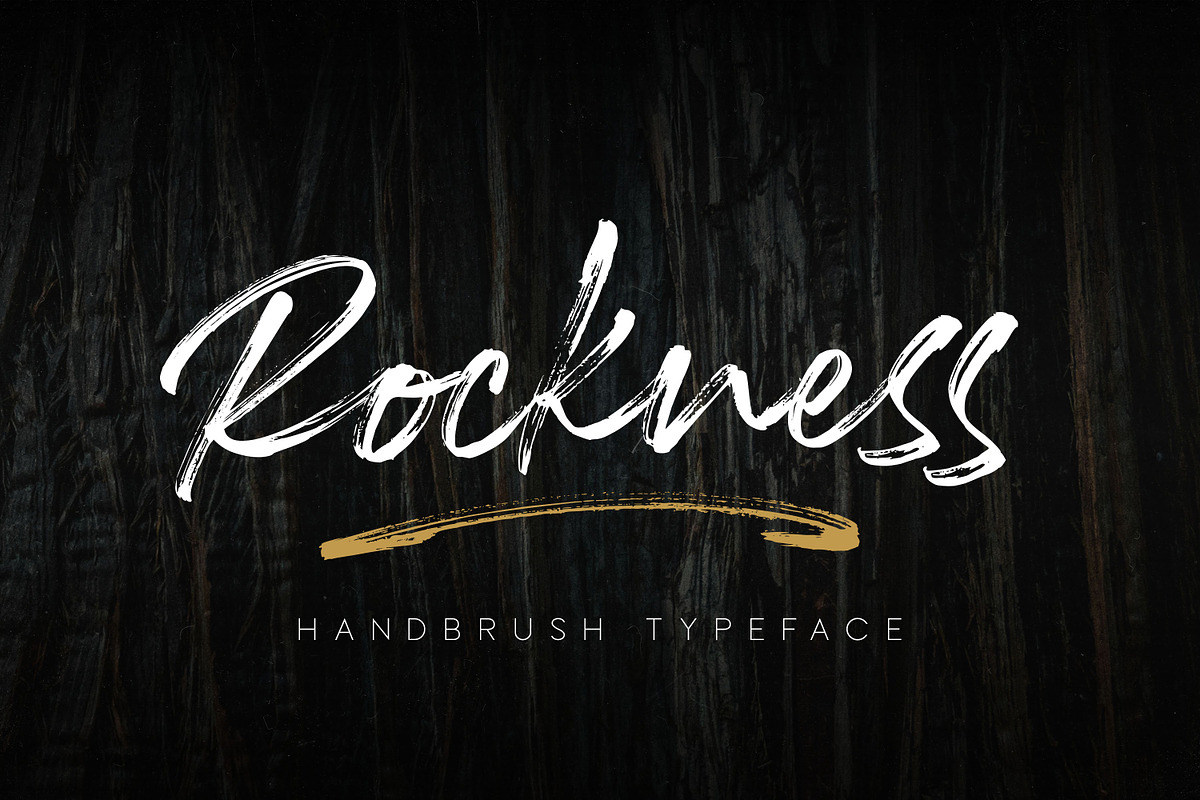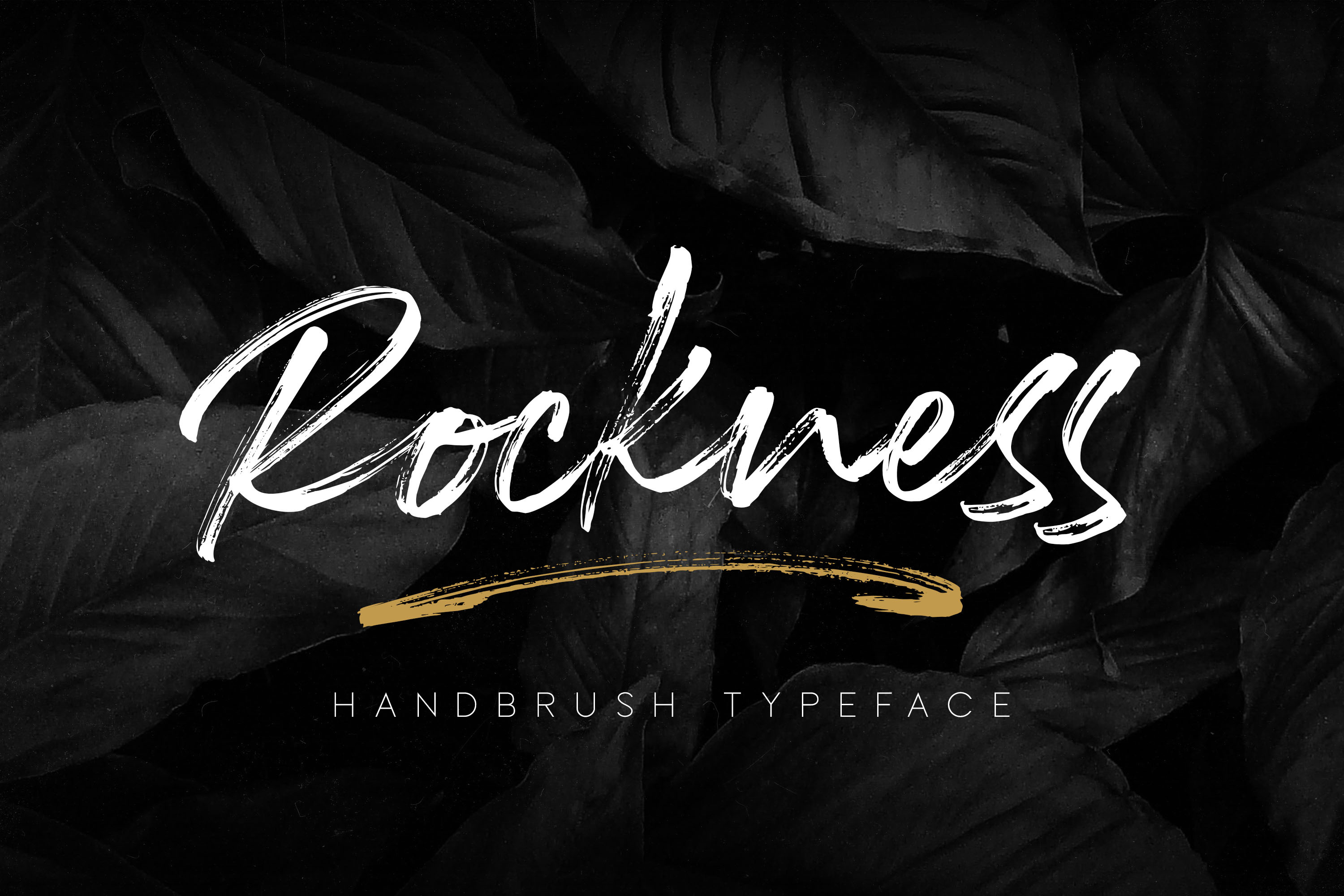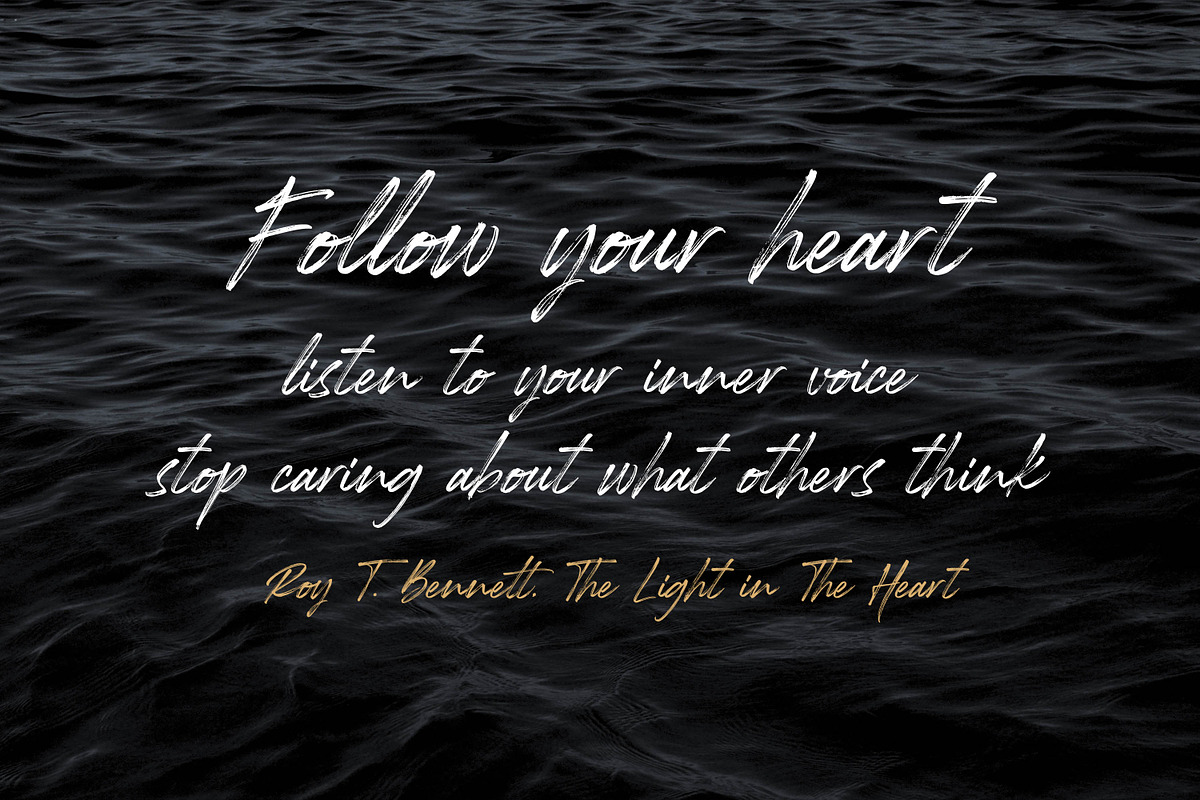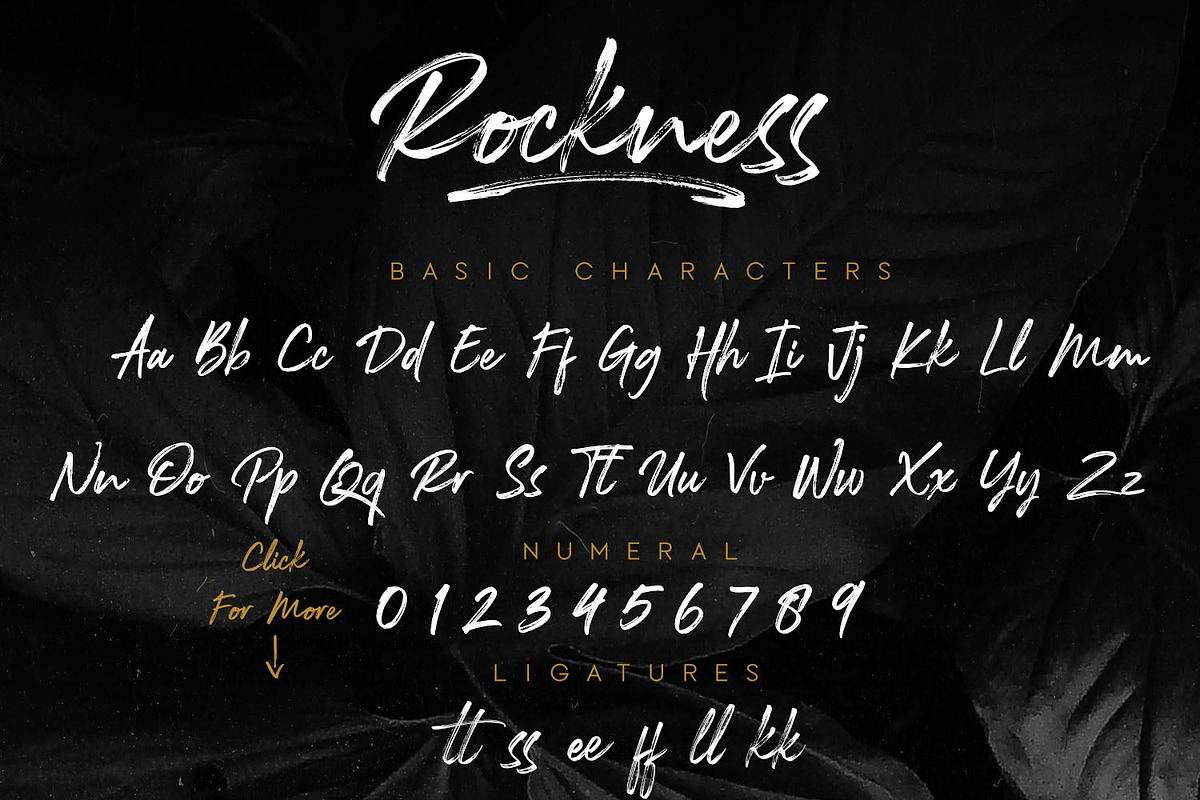
Introducing Rockness Handbrush Typeface is a brush script that is written casually and quickly. Letters are made with brushes on paper. Then scanned and carefully drawn into vector format. That is why Rockness has charming, authentic and relaxed characteristics.has 2 styles of regular and slant variations with a more natural look to your text. You can activate Ligature and Alternates in the OpenType panel to make these two styles. It also has many alternatives and underlines that make your text and design more interesting. Rockness is perfect for homeware designs,branding projects, Logo design,Quotesproduct packaging - or simply as a stylish text overlay to any background image